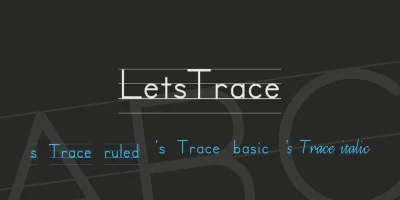
Letstrace Font Family
Letstrace Font
Letstrace Font is perfect for educational learning materials, children's handwriting practice sheets, tracing activity books, kindergarten classroom resources, developmental therapy tools, fine motor skill exercises, early childhood education programs, and interactive learning applications.
This font is exciting because it embodies learning progression with guided letterforms that capture the educational journey and developmental milestones of children discovering the joy of writing and self-expression. Letstrace Font brings educational sophistication to designs through its instructional structure and learning-focused styling that feels like typography designed by caring teachers who understand the importance of proper letter formation. The font's developmental character makes it perfect for educational brands and want to communicate growth, support, and the kind of patient guidance that helps children build confidence through successful learning experiences.
The Letstrace Font family includes Regular, Bold, Light, Practice, Guided, and Learning variants, each designed to capture different aspects of educational development while maintaining the font's characteristic instructional appeal and learning authenticity. The character set features educational details that enhance the font's connection to childhood development and learning progression.
Whether you're creating materials for educational institutions, designing learning resources for children, or developing content that needs to support developmental growth, Letstrace Font delivers the educational typography that guides young learners toward writing success through patient instruction and encouraging practice. This remarkable typeface transforms text into stepping stones of learning that resonate with the same supportive guidance and educational wisdom found in the most effective teaching methods, ensuring your message communicates the caring instruction and developmental support that helps children build the foundational skills they need to express themselves confidently through writing and unlock the amazing potential that lies within every young learner.